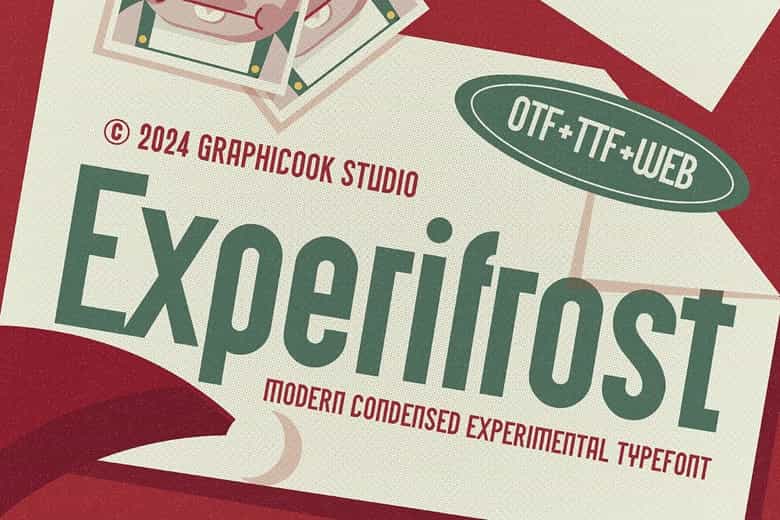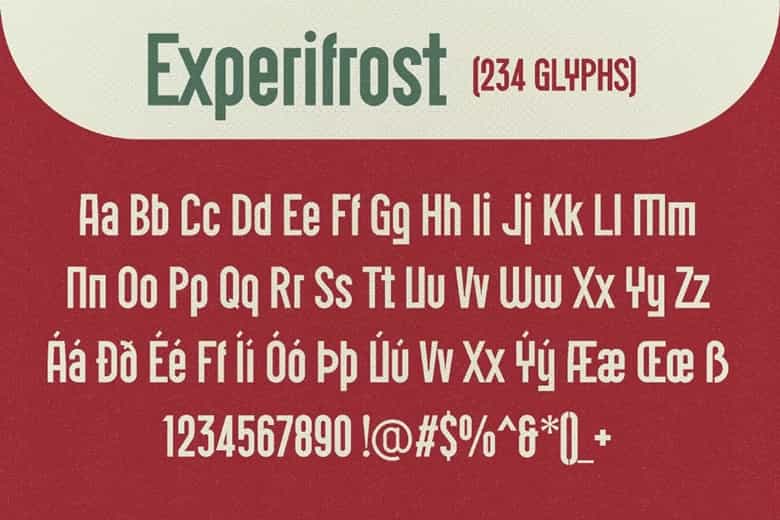
Experifrost Sans Serif Font which is a combination of experimental style and chilly holiday vibes is a fun and Minimalistic font suitable for simple designs. Experifrost is great for headlines, logos, magazines, packaging, quotes, films, games, cover albums, book covers and flyers – it is a great tool for creating engaging designs that will always draw attention.